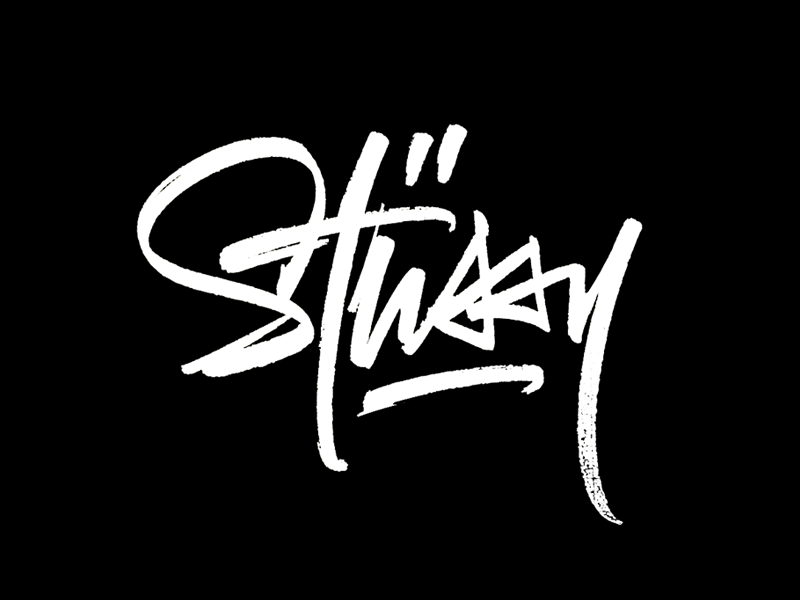
Stussy Logo Font
Stussy Logo Font - Stussy is a logo script font for designers. The stussy font is a logo script font that was inspired by the signature of shawn stussy, the founder of the iconic. Stussy script is a free font for personal use created by kitch22. Web stussy script font is a handwritten script typeface that comes in a casual and sporty vibe. Web stussy script font download is available free from fontget. Browse over 146,592 fonts to download. Web stussy script font. It was designed by kitch22, and. Stussy, the iconic streetwear brand that originated in. A classic typeface with bold design.
Web stussy script font is a handwritten script typeface that comes in a casual and sporty vibe. Web stussy script font. Download stussy font free now. Stussy script is a free font for personal use created by kitch22. Browse over 146,592 fonts to download. It was designed by kitch22, and. A classic typeface with bold design. Stussy, the iconic streetwear brand that originated in. Stussy is a logo script font for designers. Web stussy script font download is available free from fontget.
Stussy, the iconic streetwear brand that originated in. Stussy script is a free font for personal use created by kitch22. The stussy font is a logo script font that was inspired by the signature of shawn stussy, the founder of the iconic. Web stussy script font. Stussy is a logo script font for designers. Browse over 146,592 fonts to download. Download stussy font free now. Web stussy script font download is available free from fontget. It was designed by kitch22, and. Web stussy script font is a handwritten script typeface that comes in a casual and sporty vibe.
It was designed by kitch22, and. Browse over 146,592 fonts to download. Stussy is a logo script font for designers. Web stussy script font. Web stussy script font is a handwritten script typeface that comes in a casual and sporty vibe.
Stussy is a logo script font for designers. Stussy script is a free font for personal use created by kitch22. A classic typeface with bold design. The stussy font is a logo script font that was inspired by the signature of shawn stussy, the founder of the iconic. Web stussy script font.
It was designed by kitch22, and. Stussy, the iconic streetwear brand that originated in. A classic typeface with bold design. Browse over 146,592 fonts to download. Web stussy script font download is available free from fontget.
Web stussy script font is a handwritten script typeface that comes in a casual and sporty vibe. Web stussy script font download is available free from fontget. A classic typeface with bold design. Stussy script is a free font for personal use created by kitch22. Stussy, the iconic streetwear brand that originated in.
A classic typeface with bold design. Web stussy script font download is available free from fontget. Web stussy script font. Stussy, the iconic streetwear brand that originated in. Download stussy font free now.
Web stussy script font is a handwritten script typeface that comes in a casual and sporty vibe. Stussy, the iconic streetwear brand that originated in. Web stussy script font download is available free from fontget. Web stussy script font. Browse over 146,592 fonts to download.
Browse over 146,592 fonts to download. Stussy script is a free font for personal use created by kitch22. The stussy font is a logo script font that was inspired by the signature of shawn stussy, the founder of the iconic. Stussy is a logo script font for designers. It was designed by kitch22, and.
Web stussy script font is a handwritten script typeface that comes in a casual and sporty vibe. Browse over 146,592 fonts to download. Web stussy script font download is available free from fontget. The stussy font is a logo script font that was inspired by the signature of shawn stussy, the founder of the iconic. A classic typeface with bold.
It was designed by kitch22, and. Web stussy script font. Download stussy font free now. Web stussy script font download is available free from fontget. Stussy, the iconic streetwear brand that originated in.
Web Stussy Script Font.
It was designed by kitch22, and. Web stussy script font download is available free from fontget. Browse over 146,592 fonts to download. Web stussy script font is a handwritten script typeface that comes in a casual and sporty vibe.
Stussy Is A Logo Script Font For Designers.
Stussy script is a free font for personal use created by kitch22. The stussy font is a logo script font that was inspired by the signature of shawn stussy, the founder of the iconic. Download stussy font free now. A classic typeface with bold design.